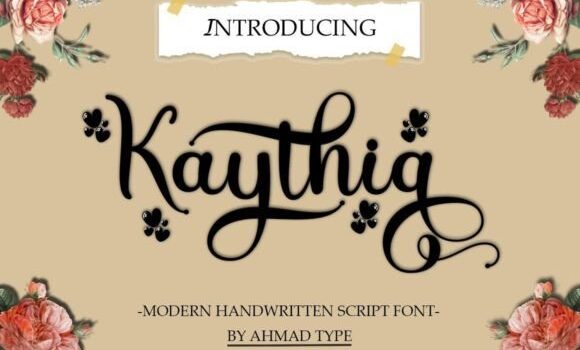
Kaythia Font – Free Download Introduction to Kaythia Font Kaythia is a beautiful and modern handwritten font perfect for web, prints, wedding invitations, wedding suites, stationery, packaging, logos, greeting cards, quotes, social media graphics, and many more. 📸 Preview Gallery